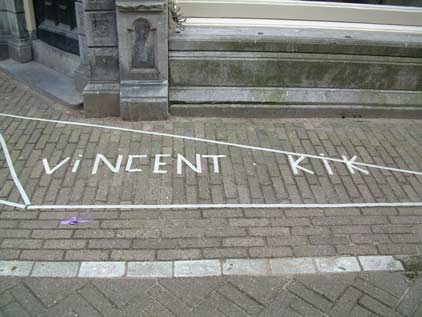
Max
Kisman. Amsterdam, Netherlands, April 2003.
Over the decades, the annual birthday celebrations of the former Queen
of the Netherlands, Juliana of Orange, on April 30th, have expanded
to a National Event. Especially in the country's capital Amsterdam,
where the whole inner city changes into a huge fleemarket. Once a
symbol of the |
regained freedom after
a 5 year occupation, it has become an international tourist attraction.
In the preceeding days, the streets and pavements are marked with
lines and names to reserve or claim a space for the big day's selling,
buying and drinking spree. It's another great example illustrating
Dutch space management and control, improvising with an ever so inventive,
yet fuctional Dutch typography for its signage. |